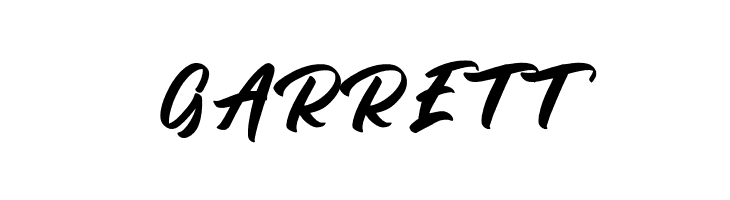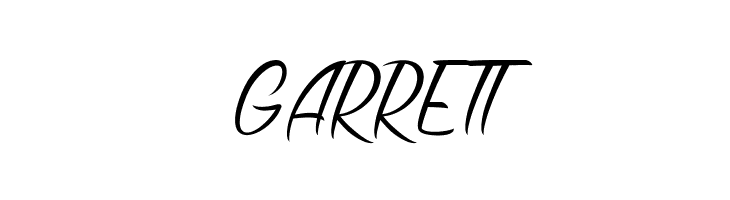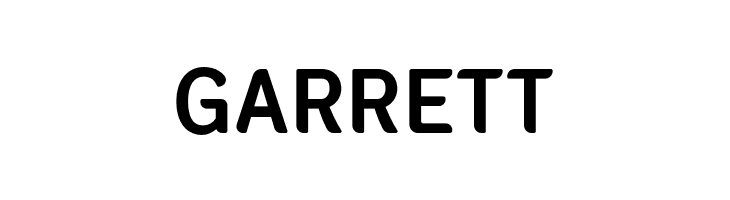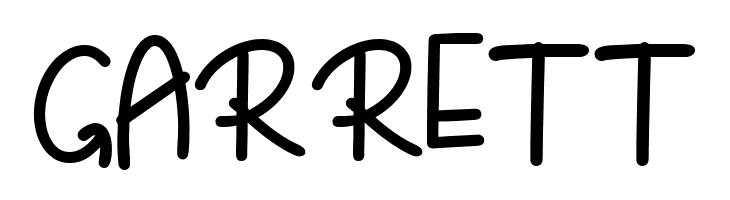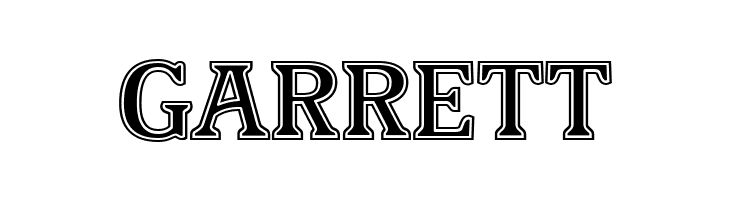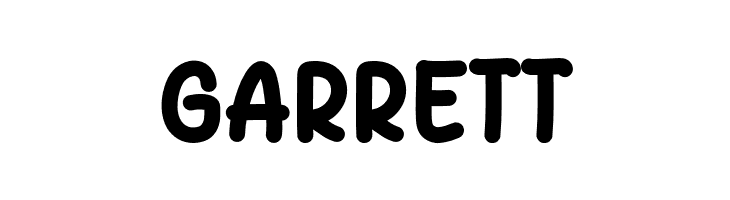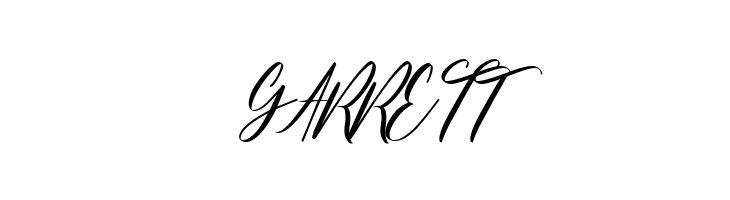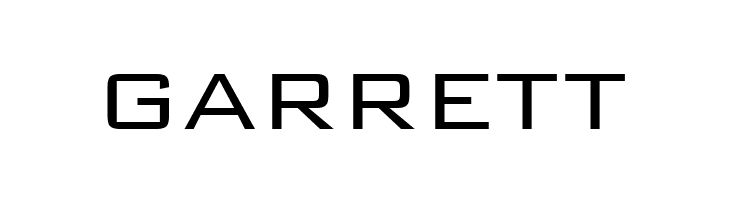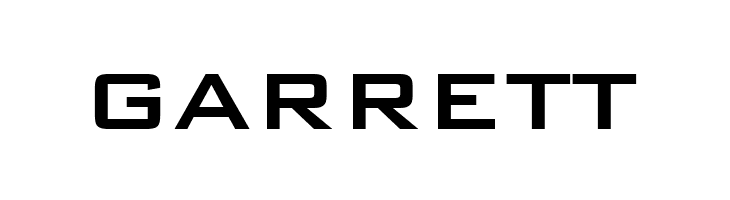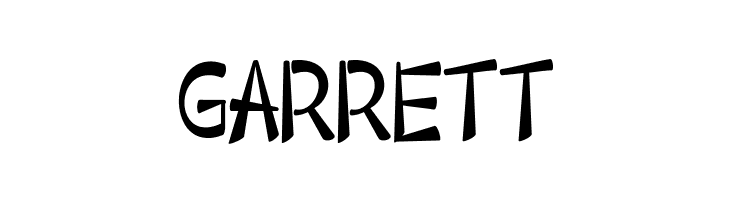
A modern sans-serif font with rounded edges and consistent stroke widths.
A modern, rounded sans-serif font with a friendly and approachable style.
A bold, segmented font with a modern, digital aesthetic.
A bold, vintage-style font with outlined, shadowed letters ideal for dramatic headlines.
A dynamic and elegant script font with a cursive style and smooth curves.
A dynamic and flowing script font with elegant curves and a slightly slanted style.
A modern, elegant font with bold, slightly condensed uppercase letters and smooth lowercase characters.
A bold, decorative font with a vintage, circus-like style.
A bold, playful handwritten font with a casual and lively style.
A bold, distressed font with a grunge texture and tight spacing.
A playful, bold font with rounded, thick strokes and a hand-drawn feel.
A bold, cursive font with a dynamic and flowing style.
A bold, dynamic font with slanted, energetic characters.
A bold, slanted, and energetic font with a playful style.
A modern, elegant font with thin, elongated letterforms and high contrast strokes.
An elegant, flowing script font with ornate uppercase and fluid lowercase letters.
An elegant script font with smooth, flowing lines and a sophisticated appearance.
A monoline, slanted script font with an elegant and fluid style.
A sophisticated cursive script with elegant, flowing lines and ornate flourishes.
A jagged, horror-themed font with sharp, irregular edges.
A jagged, horror-themed font with a scratchy, distressed appearance.
A jagged, horror-themed font with sharp, irregular strokes.
A decorative and vintage-style font with ornate uppercase letters and complementary lowercase characters.
A bold, decorative font with intricate details and ornate flair.
A distressed, textured font with a grungy, hand-drawn style.
A bold, distressed font with a grunge, hand-painted style.
A retro-style font with tall, narrow characters and sharp angles.
A bold, playful script font with interconnected letters and a casual, handwritten feel.
A dynamic script font with elegant, flowing strokes and a modern calligraphic style.
Elegant handwritten script font.
A bold blackletter font with sharp, angular lines and high contrast.